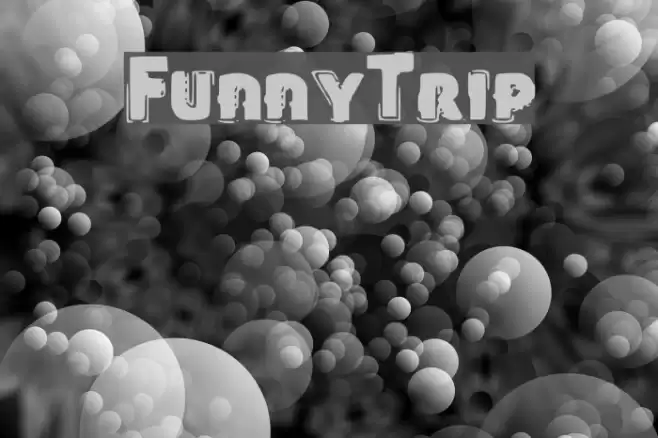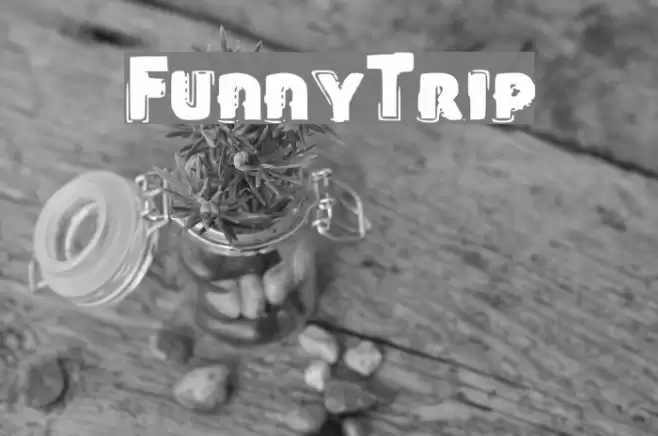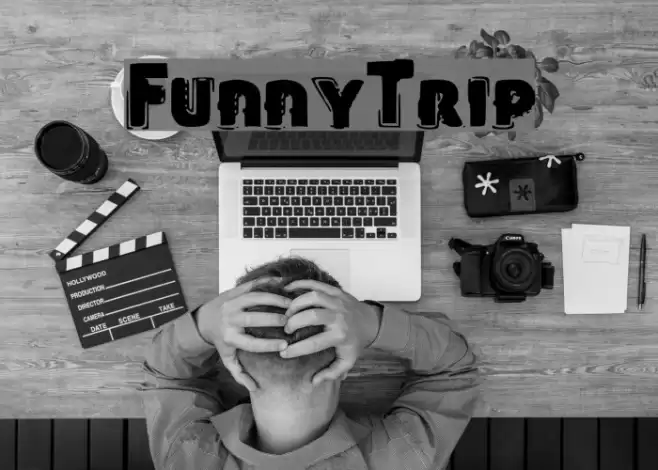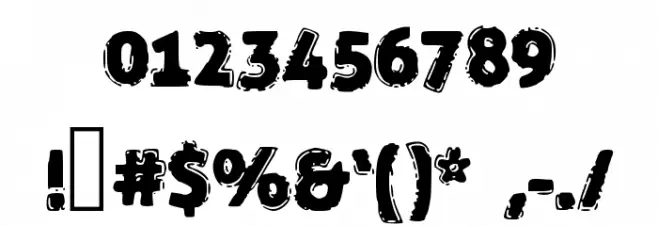
FunnyTrip Font
FunnyTrip Description
This font features a playful and bold design with a distressed, grunge-like texture that gives it a unique and eye-catching appearance. The characters are thick and robust, with irregular edges that add a sense of movement and energy. The uppercase and lowercase letters maintain a consistent style, while the numbers and special characters complement the overall aesthetic. This font's distinctive look makes it ideal for projects that require a fun and informal touch.
A bold, playful font with a distressed, grunge-like texture from Uncategorized fonts.
- Proposed Projects: Ideal for posters, event flyers, children's book covers, and playful branding projects.